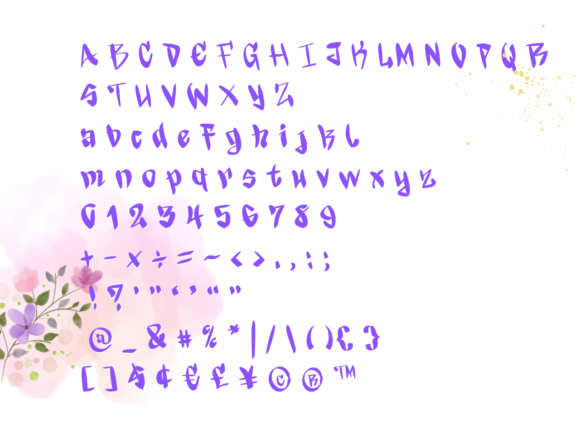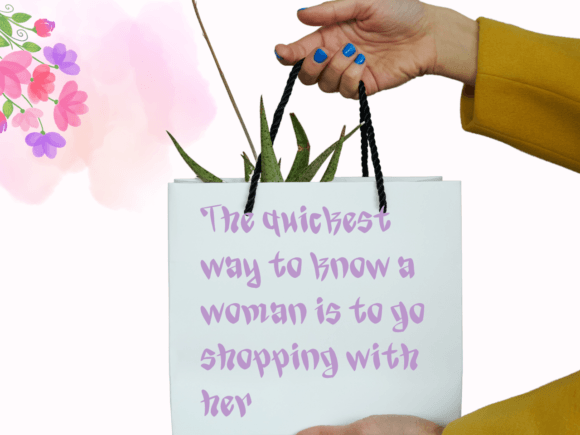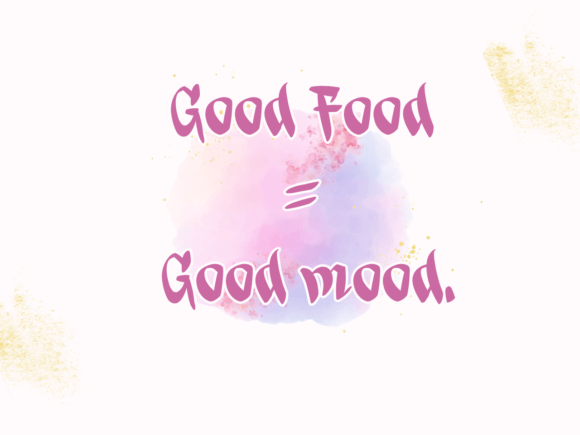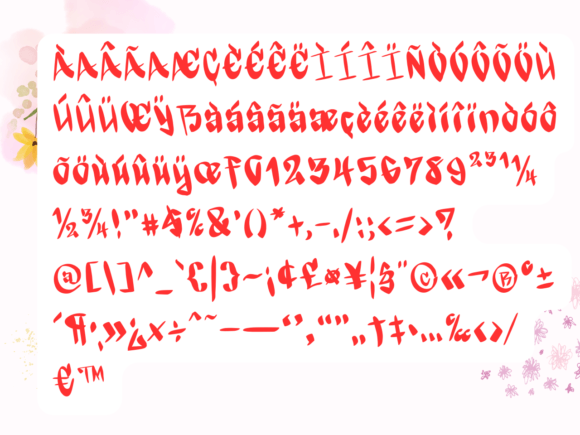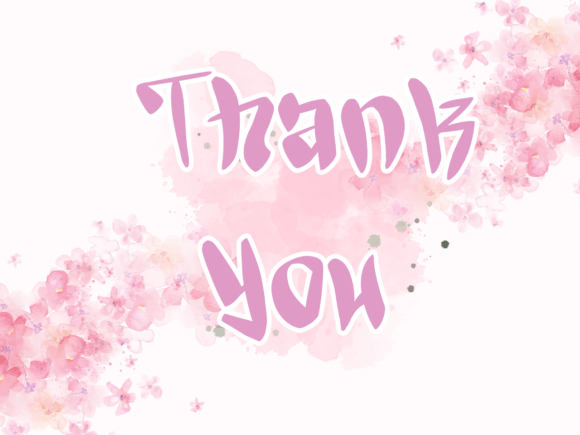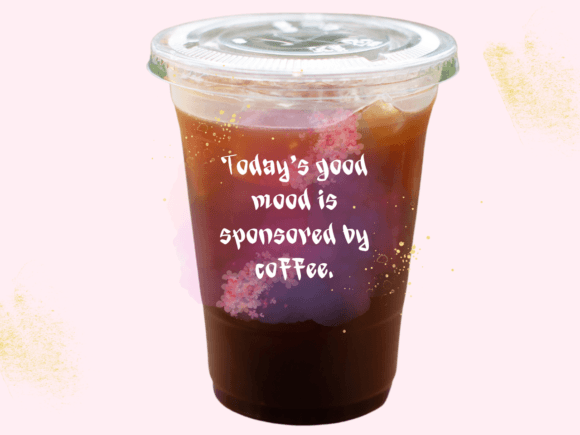
Introduction to Jada Font Font
Fonts play a crucial role in design, and the Jada Font font is a typeface that brings both character and versatility to any project. Whether you’re working on a branding project, a website, or a print design, the Jada Font font offers a unique style that can elevate your work.
Character design work from the concept of hand writing by applying different brushes.
Make the font design work different Have their own uniqueness this font design can be used Increase the prominence of your work, whether you use it in a letter.
Key Features of Jada Font Font
Why Choose Jada Font Font?
The Jada Font font is more than just a typeface – it’s a design tool that helps you communicate your message with style and clarity. Its unique character set and versatile design make it suitable for a wide range of applications, from elegant invitations to bold headlines.
With its carefully crafted letterforms and balanced proportions, the Jada Font font ensures readability and visual appeal across all mediums.
What makes Jada Font font special?
The Jada Font font stands out with its unique design, exceptional readability, and versatility across various design applications.